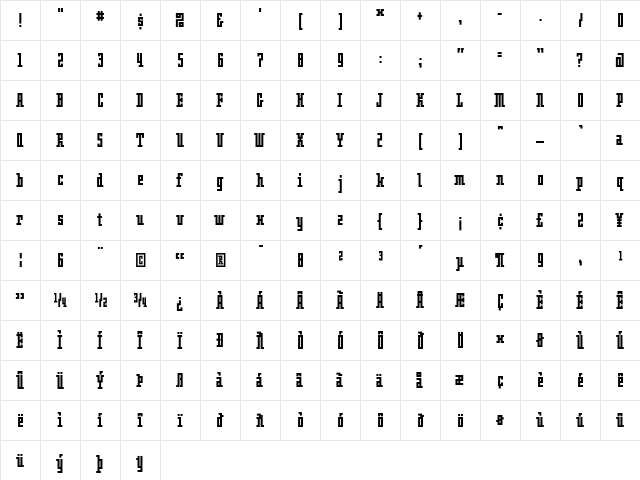
OblongBold Bold
| Foundry | Copr. Emigre Graphics |
Design Context for OblongBold Typeface
OblongBold offers clean, dependable letterforms without strong stylistic allegiance, making it a practical choice for designers who need flexibility. Its bold stroke weight gives it real presence on the page.